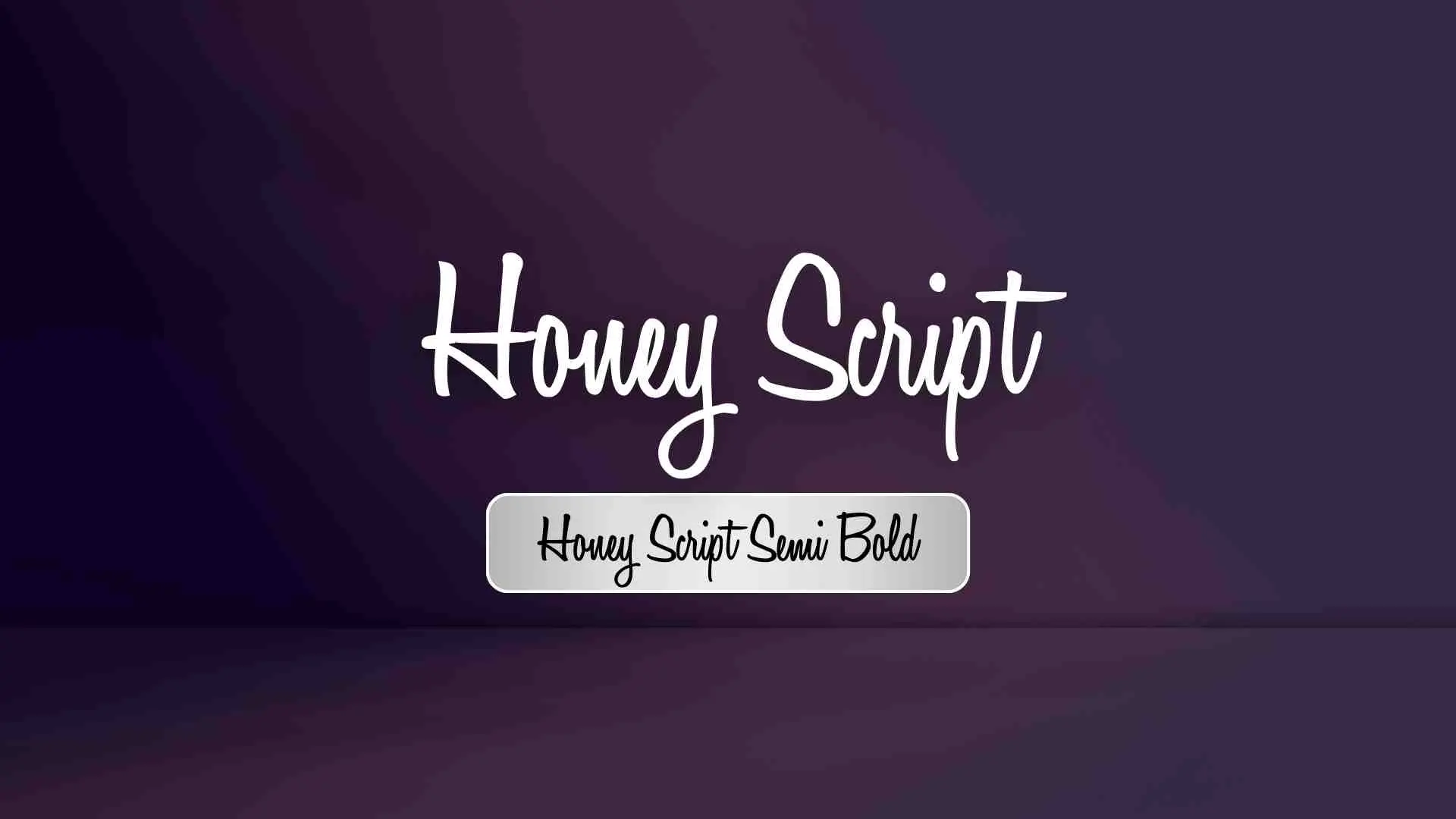
The font Honey Script Semi Bold, designed by Dieter Steffmann, falls under the Handwritten, Script category & Honey Script font family. Its smooth, flowing letterforms make it a versatile choice for projects that require both elegance and readability. Honey Script is particularly well-suited for Packaging, Editorial Design, Invitations and Stationery, Logos and Branding and Social media graphics and quotes. With its balance of simplicity and decorative appeal, this font brings a polished touch to both personal and professional designs.